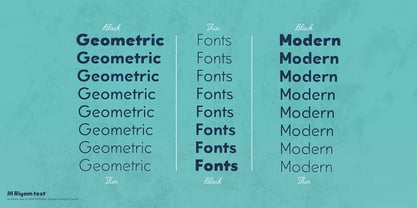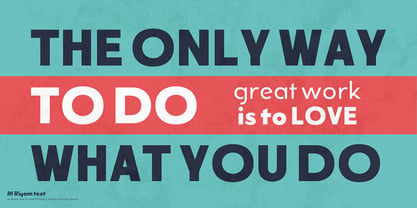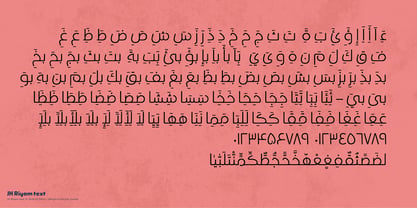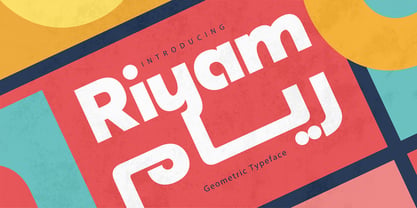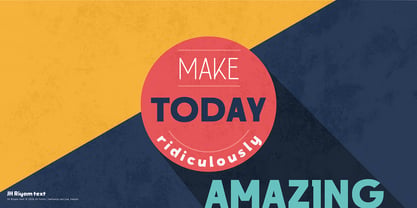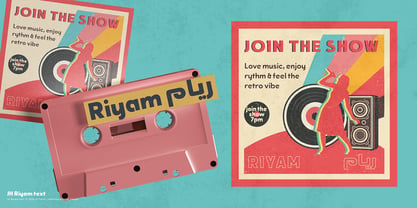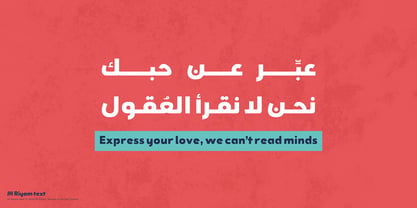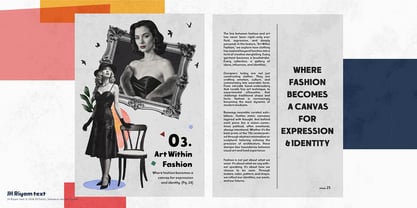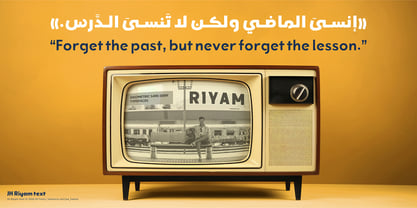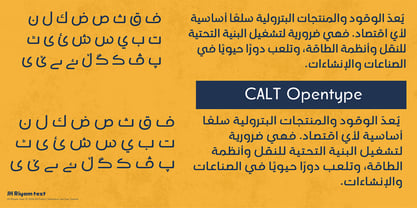
JH Riyam text
by JH Fonts
The JH Riyam text Font Family was designed by Joe Hatem and published by JH Fonts. JH Riyam text contains 9 styles and family package options. More about this family
JH Riyam is a versatile multilingual geometric typeface that supports both Latin and Arabic scripts, characterized by its clean and contemporary aesthetic. This font family includes nine distinct weights, making it suitable for a wide range of typographic applications. Ideal for branding, logos, and extended text, JH Riyam features balanced counters and meticulously controlled spacing, ensuring excellent legibility across various sizes. Its modern design and adaptability make it a perfect choice for both digital and print media, enhancing visual communication in diverse contexts.